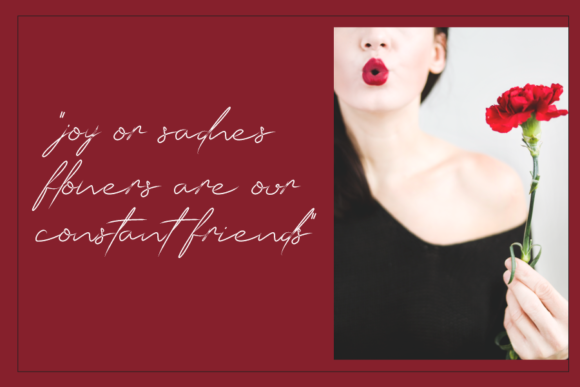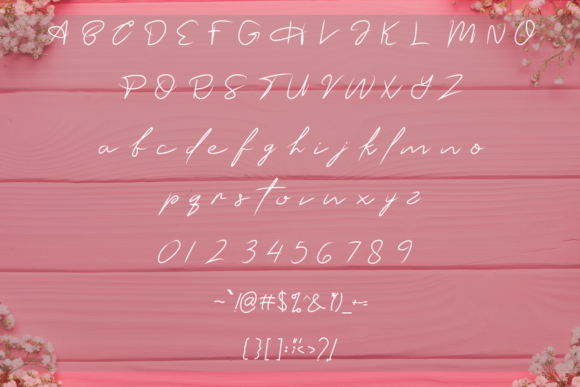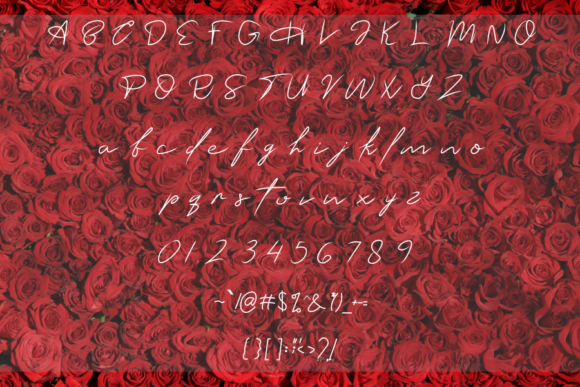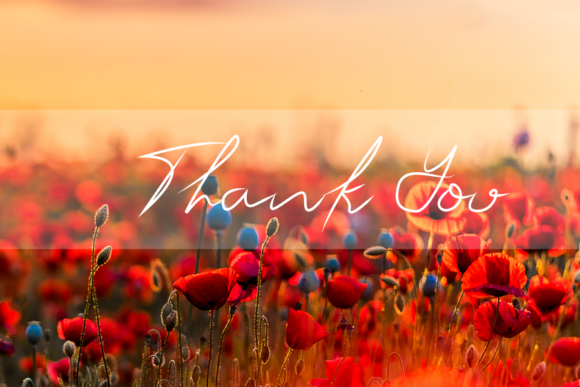
Introduction to Lauries Font
Have you ever been working on a creative project, pouring your heart and soul into it, only to realize that the perfect font is missing? That’s exactly what happened to many designers before discovering the enchanting Lauries Font. This exquisite handwritten font is a game-changer, effortlessly blending classy calligraphic influences with a modern twist, making it a true favorite among designers.
As a valuable design resource, Lauries Font offers a high-quality experience that’s hard to resist. Its clean lines, elegant curves, and subtle flair make it perfect for a wide range of creative projects, from elegant invitations to modern branding materials. And the best part? It’s available for free download, complete with a transparent background, allowing you to easily integrate it into your design without any hassle.
Whether you’re a seasoned designer or just starting out, Lauries Font is a must-have in your design arsenal. Its versatility, combined with its high-quality design, makes it an essential tool for bringing your creative projects to the next level. So why settle for an ordinary font when you can fall in love with the extraordinary Lauries Font?
Key Features of Lauries Font
- Lauries Font is a high-quality design resource available for free download, making it an ideal choice for creative projects.
- The font features a transparent background, allowing for seamless integration with various design elements.
- Lauries Font is designed with a unique, modern aesthetic, making it perfect for a variety of creative projects, from branding to digital art.
- The font’s high quality and versatility make it an excellent choice for designers seeking a reliable and effective design resource.
- Lauries Font is a great addition to any designer’s toolkit, offering a fresh and innovative approach to typography.
Honest Review: Lauries Font
Lauries Font is a beautiful addition to any design resource collection. I recently downloaded it for a creative project and was impressed with the results. ✨ The high-quality font is perfect for adding a touch of elegance to any design, from wedding invitations to magazine headlines.
One of the standout features of Lauries Font is its transparent background, making it easy to use in a variety of design scenarios. I was able to customize it seamlessly to fit my project’s color scheme.
The font itself is versatile and can be used in a range of creative projects, from digital designs to print materials.
Here are some key features that make Lauries Font stand out:
- Versatile font suitable for a range of design scenarios
⚠️ One limitation I noticed is that the font may not be suitable for small text sizes, as it can become difficult to read. However, this is a minor issue and doesn’t detract from the overall quality of the font.
Overall, I’m very impressed with Lauries Font and would highly recommend it to designers looking for a high-quality, versatile font for their next creative project.
Lauries Font
Lauries Font is a free download available for designers and artists. This high-quality font offers a unique and creative touch to any project. With a transparent background, it can be easily integrated into various design resources.
Tips for Getting the Most Out of Lauries Font
Here are some tips to get the most out of Lauries Font:
- Combine Lauries Font with other design elements to create a unique look.
- Use the transparent background to create a seamless design.
Lauries Font is commonly used in:
- Graphic design projects.
- Branding and marketing materials.
- Artistic and creative projects.